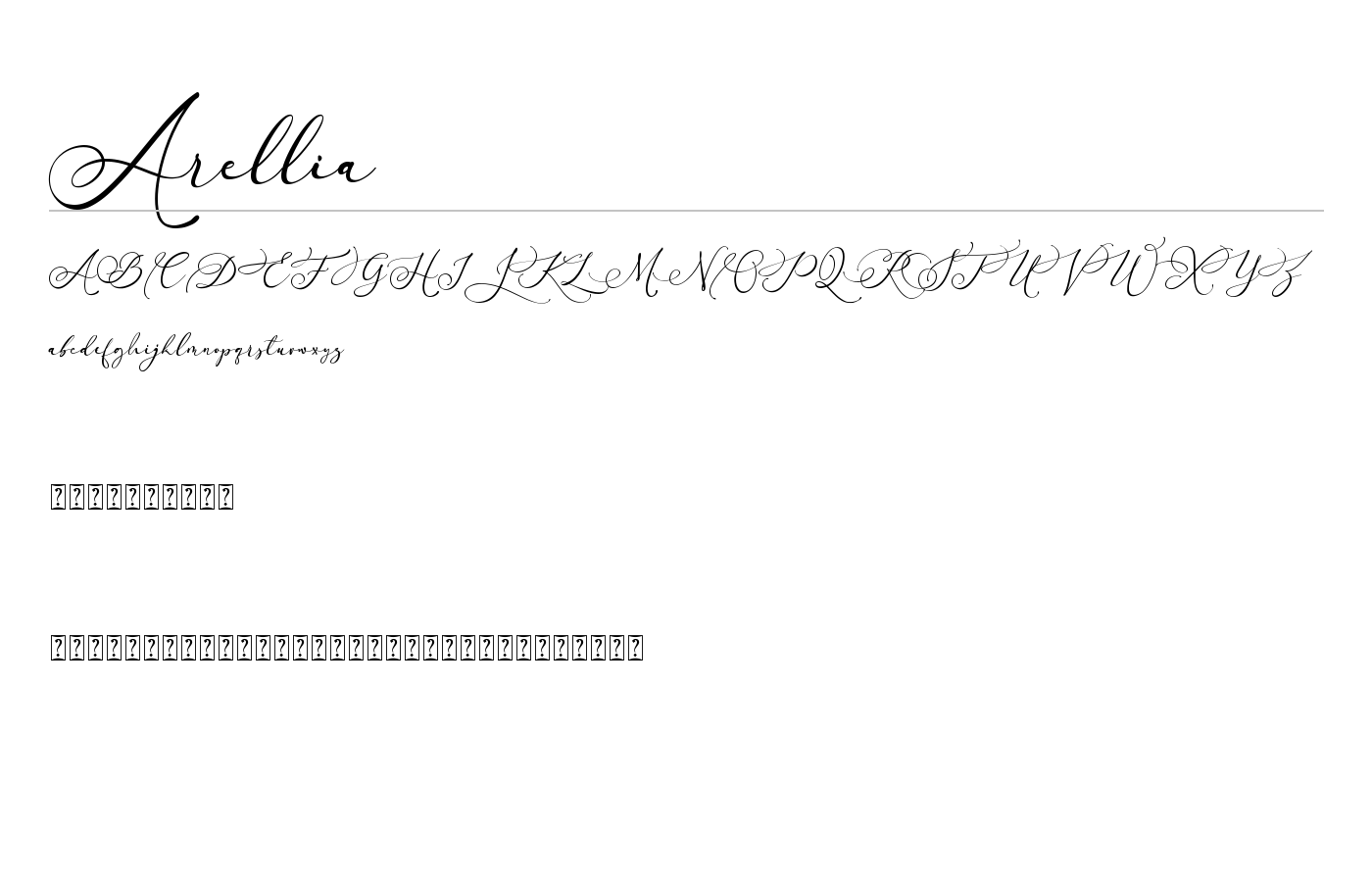
Arellia is a delicate and elegant script font featuring fine, flowing strokes that mimic sophisticated handwriting. Its high contrast and graceful loops give it a refined, romantic personality, making it perfect for wedding invitations, luxury branding, and elegant editorial designs. This font works best in decorative uses where its ornamental style can shine without compromising readability.
Arellia Font
About Arellia Font
| Font family | Arellia Font |
| Designer | Aldedesign 2019 |